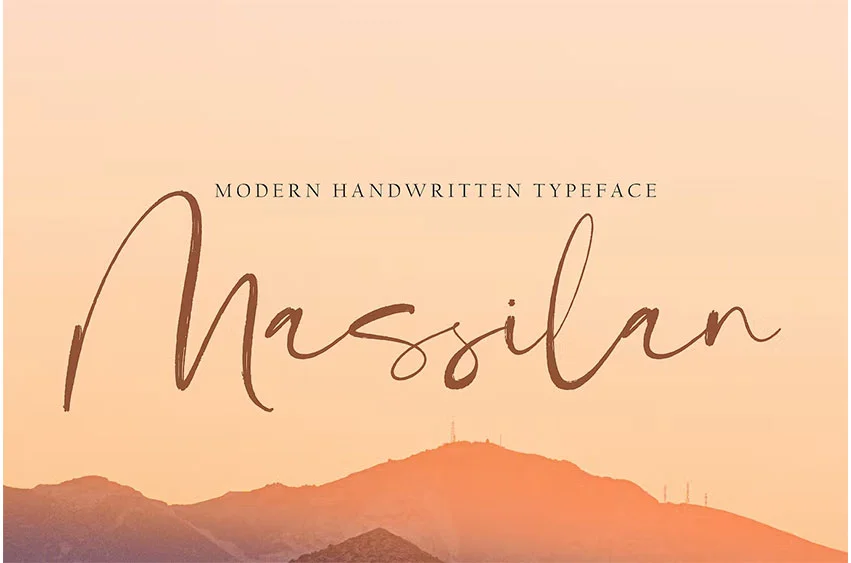
Massilan Font
Massilan font with new style, this font will perfect for many different project ex: quotes, logo, blog header, poster, banding, letter, invitation, stationery, etc…